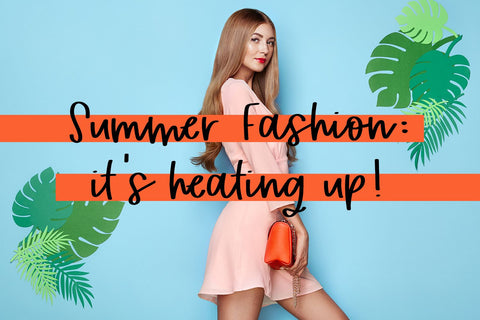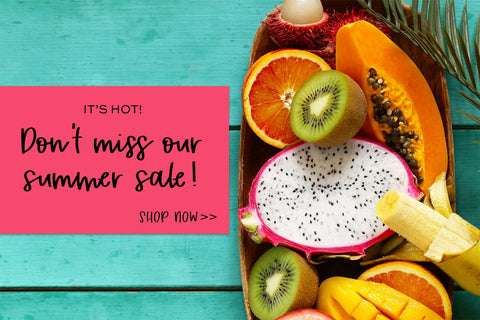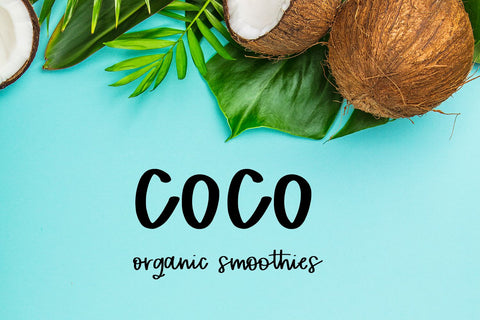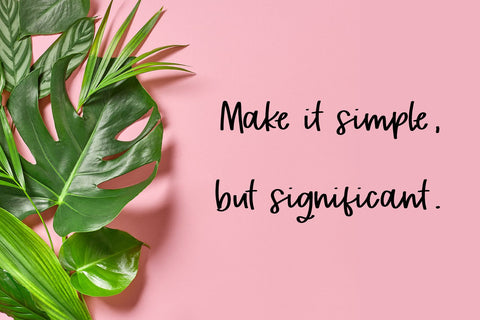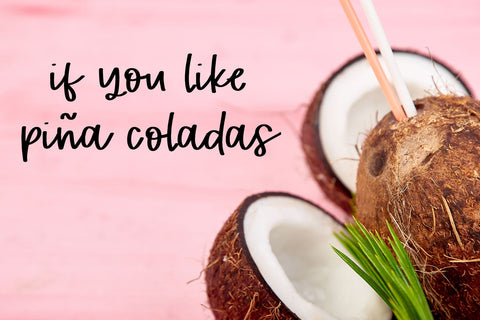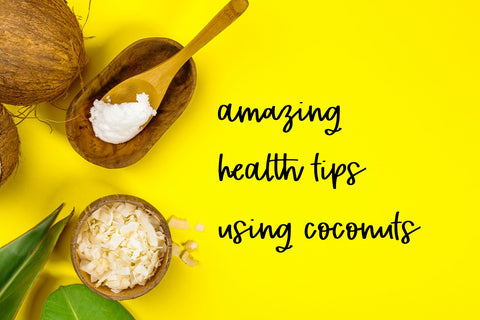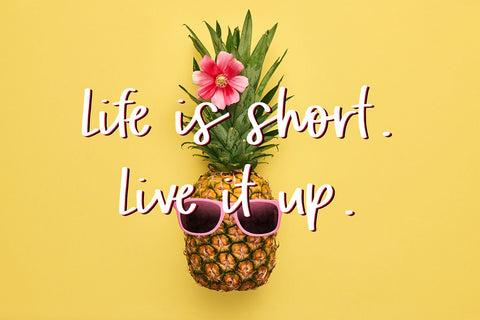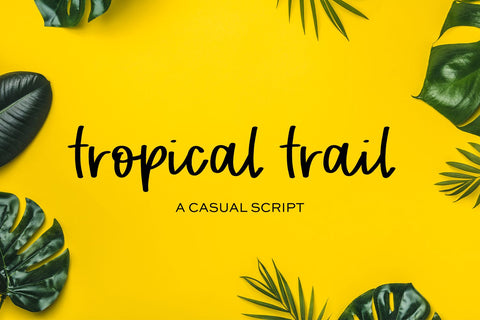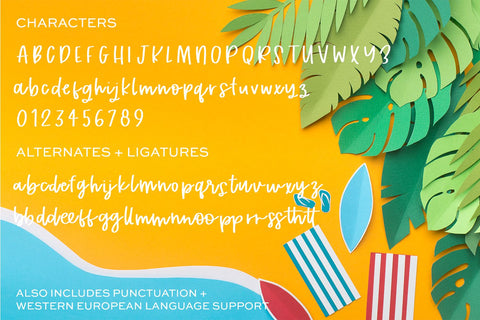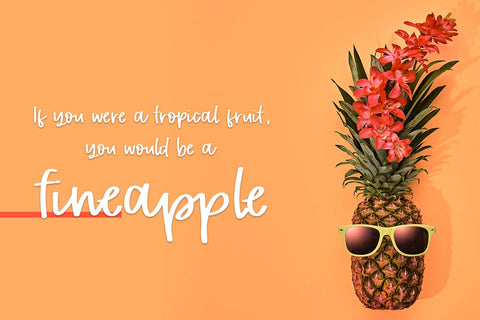
Tropical Trail Marker Font
Tropical Trail Script is a thick, clean cursive script - almost like writing with a marker!
- full upper + lowercase characters
- numbers + punctuation
- 26 lowercase alternates
- 14 ligature combinations: bb, dd, ee, ff, gg, ll, mm, nn, oo, pp, rr, ss, th, tt